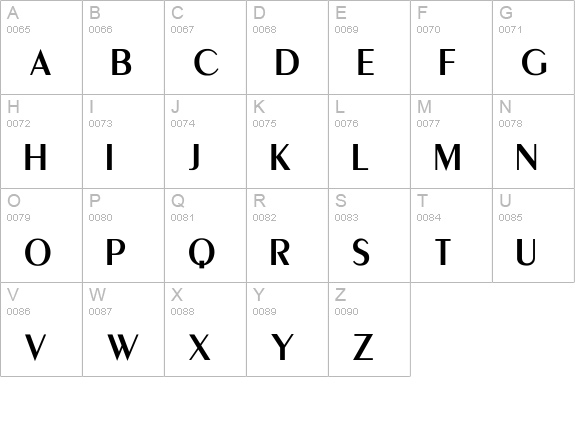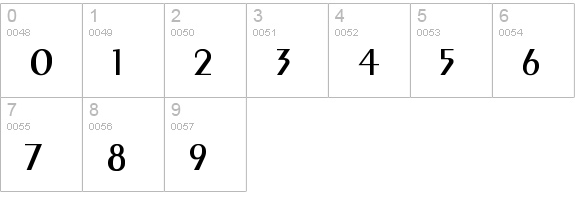
PeigMed-Medium Font Details
PeigMed-Medium is a balanced, medium-weight variant in the PeigMed typeface family \xE2\x80\x94 well suited to sub-headlines, navigation, and balanced editorial work.
Introducing PeigMed-Medium, a versatile and visually stunning font that combines elegance with modernity. This font is the perfect choice for those seeking a balanced and sophisticated look in their designs. PeigMed-Medium offers a medium weight that strikes the right balance between boldness and subtlety, making it ideal for a wide range of applications. Whether you're designing a logo, creating a website, or crafting a captivating poster, this font will effortlessly elevate your project to new heights. With its clean lines and smooth curves, PeigMed-Medium exudes a sense of professionalism and refinement. Its timeless aesthetic ensures that your designs will remain relevant and captivating for years to come. What's even better is that PeigMed-Medium is available for free download exclusively at FontsMarket.com. Yes, you read that right – this exceptional font can be yours at no cost. FontsMarket.com is renowned for its curated collection of high-quality fonts, and PeigMed-Medium is no exception. Simply head over to the website, locate the font, and experience the freedom to enhance your designs without breaking the bank. So why wait? Download PeigMed-Medium today and unlock a world of design possibilities. Let this font be the foundation of your creative endeavors, adding a touch of sophistication and class to every project. With PeigMed-Medium, you can truly make a lasting impression.